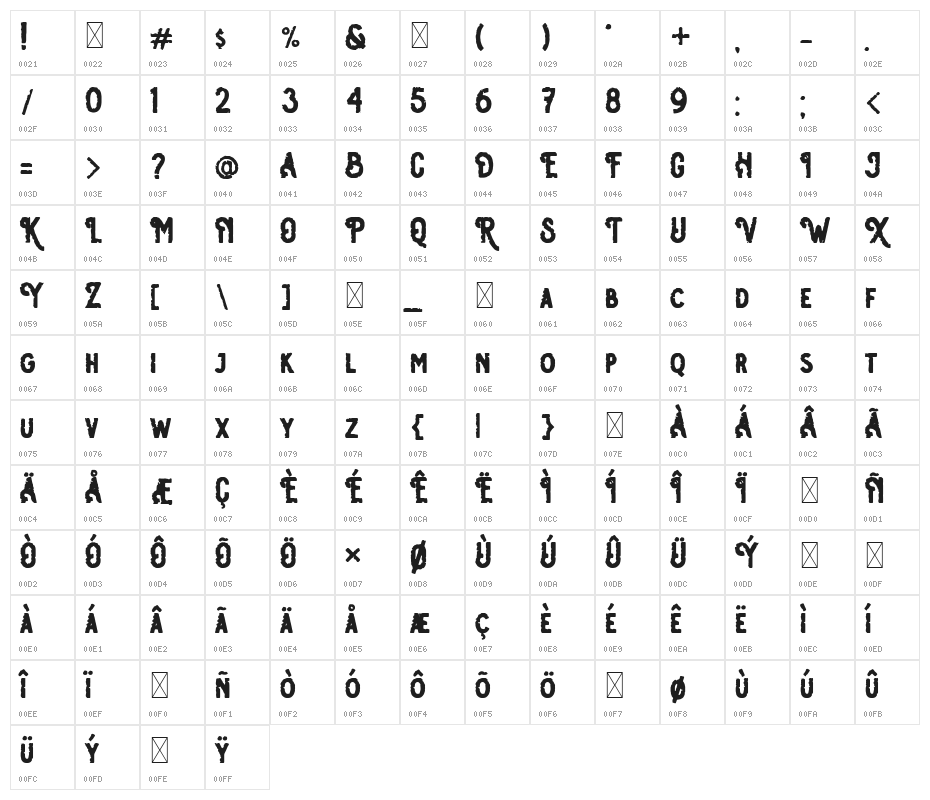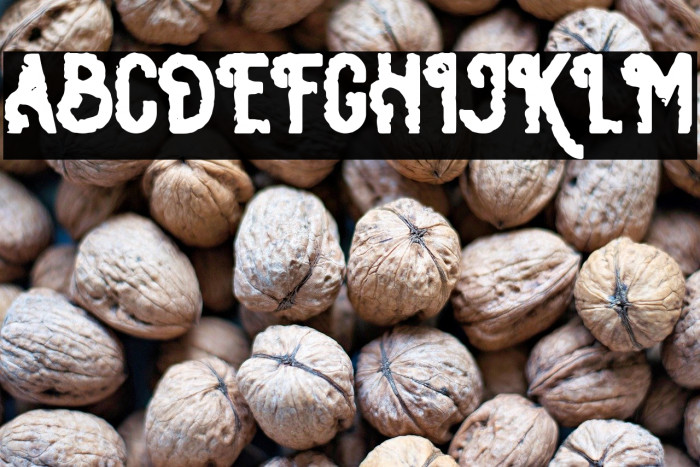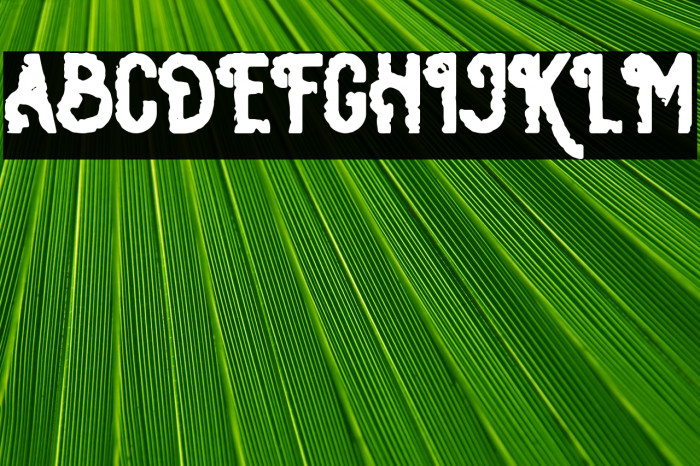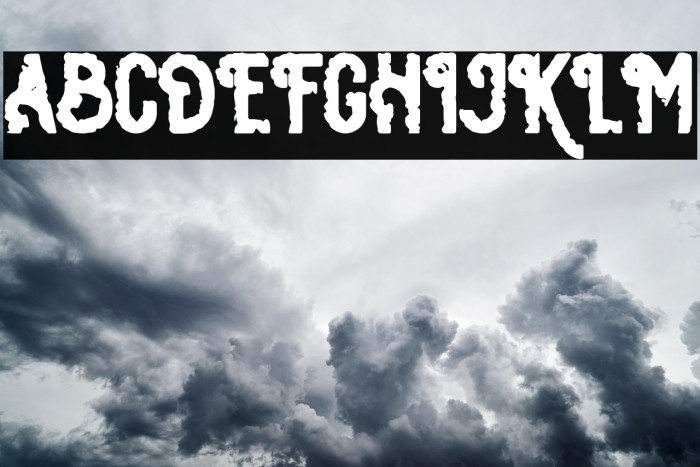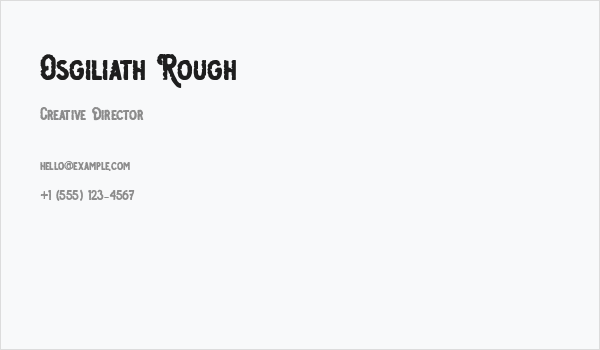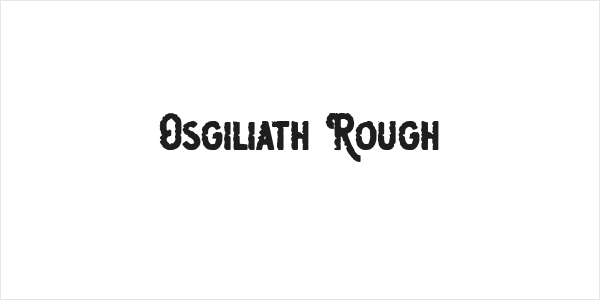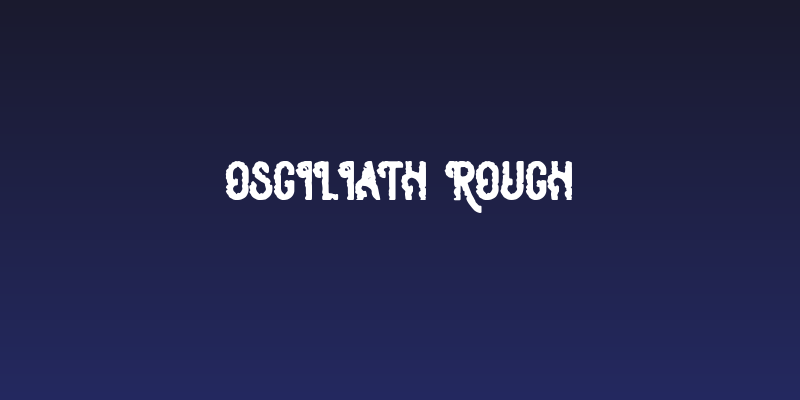
Osgiliath Rough Font
Osgiliath Rough Description
This font features a rugged, distressed appearance with uneven edges and a bold presence. The characters are thick and have a hand-crafted look, giving them a unique, vintage feel. The uppercase and lowercase letters maintain a consistent style, with the uppercase being slightly more pronounced. Numbers and special characters follow the same rough aesthetic, making the font suitable for designs that require a strong, impactful statement. The overall texture suggests a weathered, historical vibe, ideal for projects that aim to evoke a sense of antiquity or adventure.
| Proposed Projects | Ideal for posters, book covers, branding for adventure or historical themes, and any design needing a bold, vintage touch. |